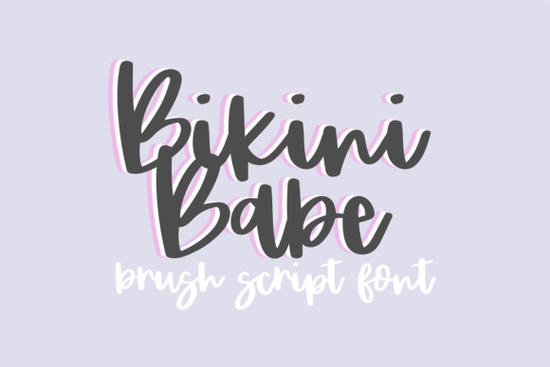
If you’re looking for a font that feels playful but still polished, Bikini Babe Font might be just what your next project needs. It’s got that casual, bouncy brush style that works especially well for social media graphics, party invites, or even print-on-demand merch like tote bags and mugs. The strokes feel hand-painted without being messy great if you want personality without losing readability.
What makes this one stand out is how naturally it fits into crafty or lifestyle-focused designs. Think summer markets, beach-themed branding, or cute quote posters for nurseries and dorm rooms. You get full uppercase letters, numbers, punctuation, and international characters so whether you’re designing in English, Spanish, or French, you’re covered.
Who should try Bikini Babe Font?
It’s not just for graphic designers. If you run a small Etsy shop selling stickers or printable wall art, this font adds charm without needing advanced design skills. Teachers making classroom decor? Perfect. Moms crafting birthday invites? Also perfect. Even coaches or fitness influencers building fun workout quotes on Instagram will find it useful.
It pairs nicely with clean sans-serifs for contrast try placing it over a simple background with something like Valencia for headers or body text to keep things balanced. Or go all-in whimsical by combining it with Strawberry Smoothie for layered quotes or greeting cards.
How does it compare to other brush fonts?
Some brush fonts can feel stiff or overly stylized. Bikini Babe keeps it loose and friendly more “handwritten doodle” than “calligraphy masterpiece.” That’s why it’s especially good for projects where you want to feel approachable, not formal.
If you’ve used any of those before and liked their vibe, Bikini Babe will feel familiar just with its own sunny, laid-back twist.
One thing worth noting: because it’s a brush font, spacing between letters matters. Most programs let you adjust tracking or kerning manually, so play around until the bounce feels natural. Sometimes less space = more personality.
Any tips for getting the most out of this font?
A few quick ideas:
- Layer it. Try putting a thin white or black stroke behind your text to make it pop on busy backgrounds.
- Mix case styles. Since it’s all caps, pair it with a lowercase script or serif for contrast like using Bikini Babe for headlines and a simple sans-serif for subtext.
- Scale wisely. It looks best at medium to large sizes. Avoid shrinking it too much those brush details need room to breathe.
- Add texture. Overlay a subtle paper or watercolor texture to enhance the handmade feel.